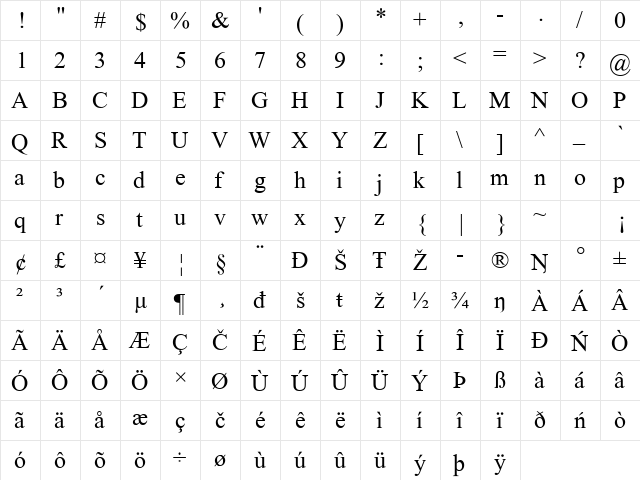
Sk Serif normal Normal
Design Context for Sk Serif normal Typeface
Sk Serif normal carries the refined structure of traditional serif typography, with bracketed terminals and considered proportions that communicate credibility and craft.
Pro Tip: Set Sk Serif normal with slightly loose tracking in headlines to let each letterform's detail read clearly at display sizes.